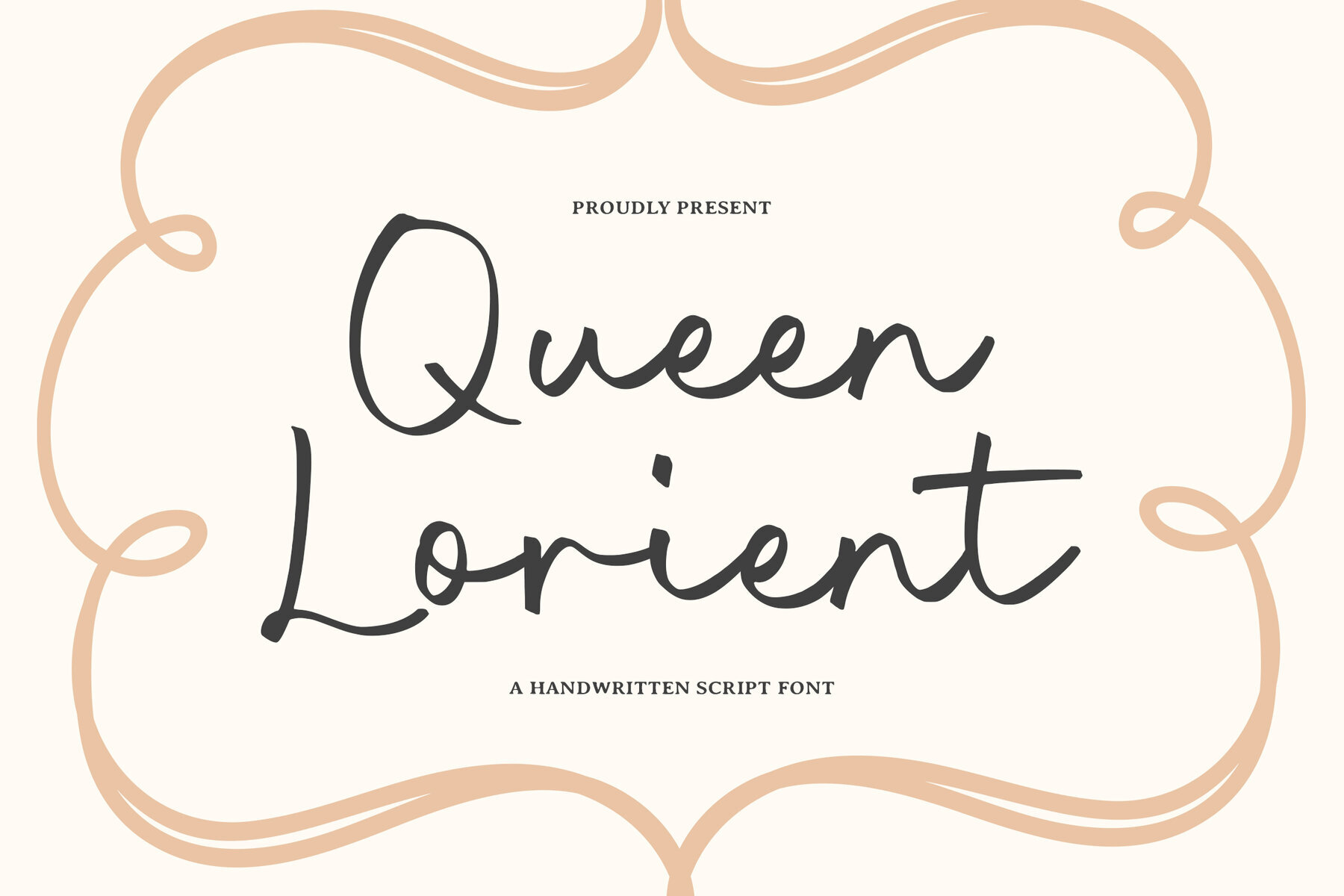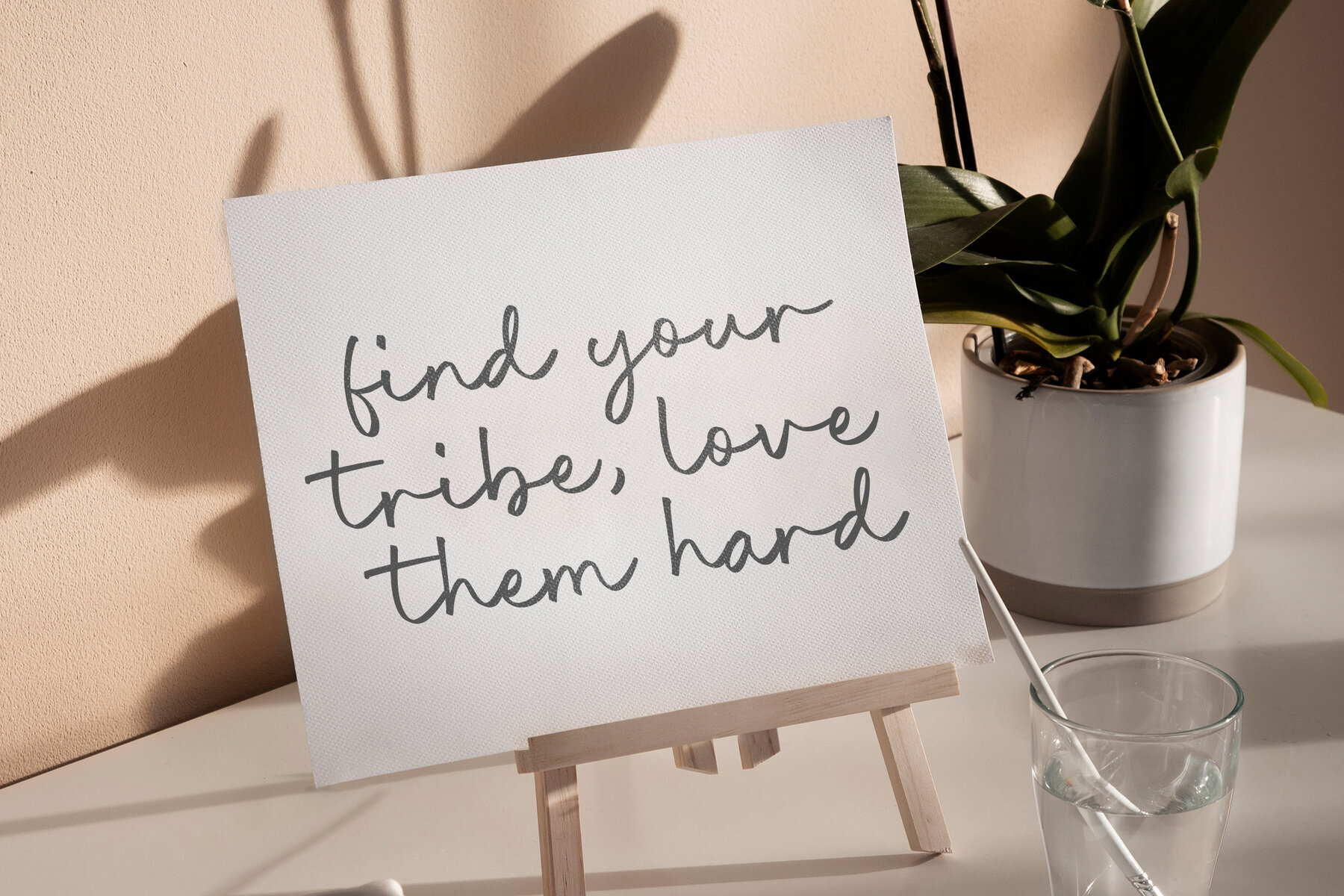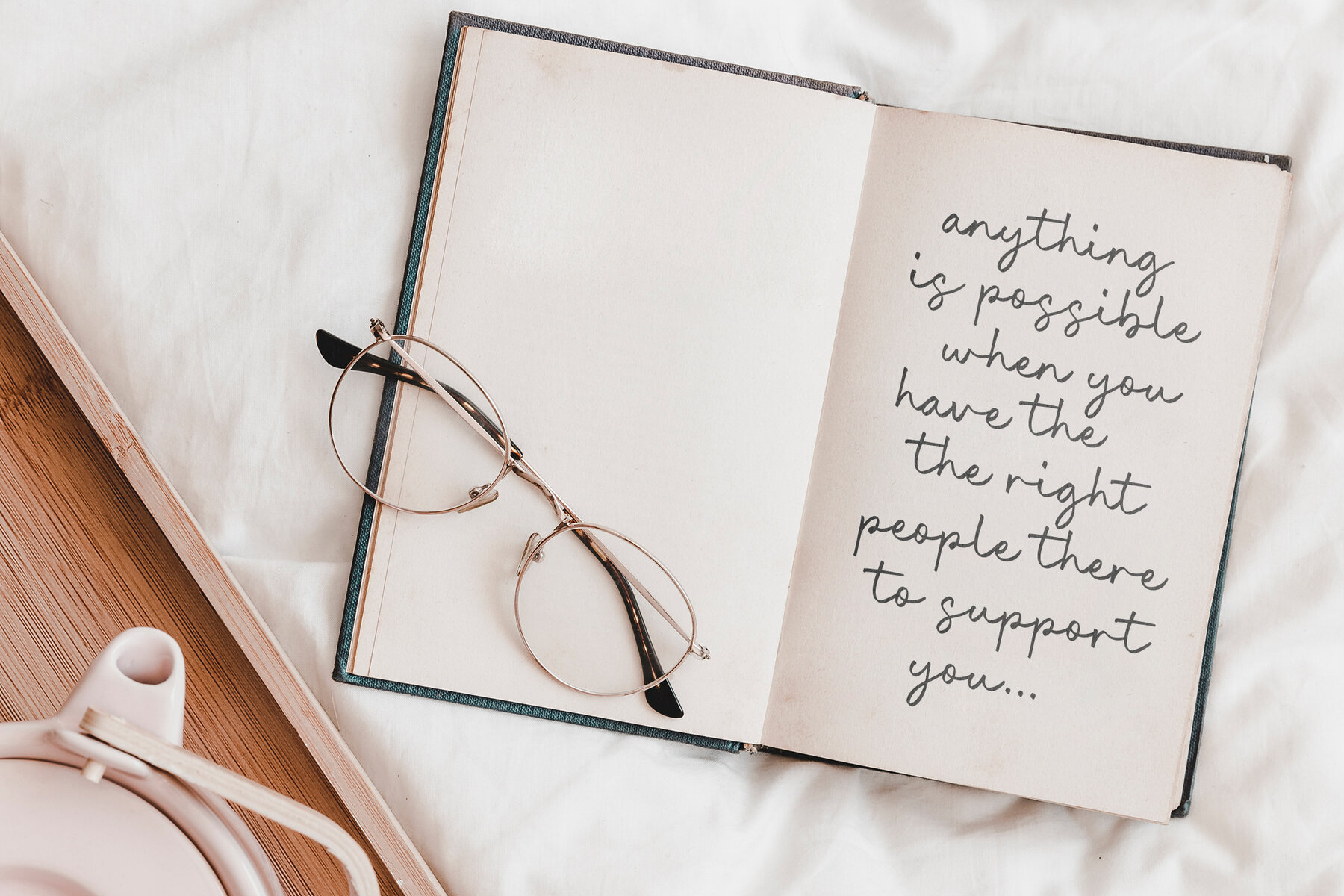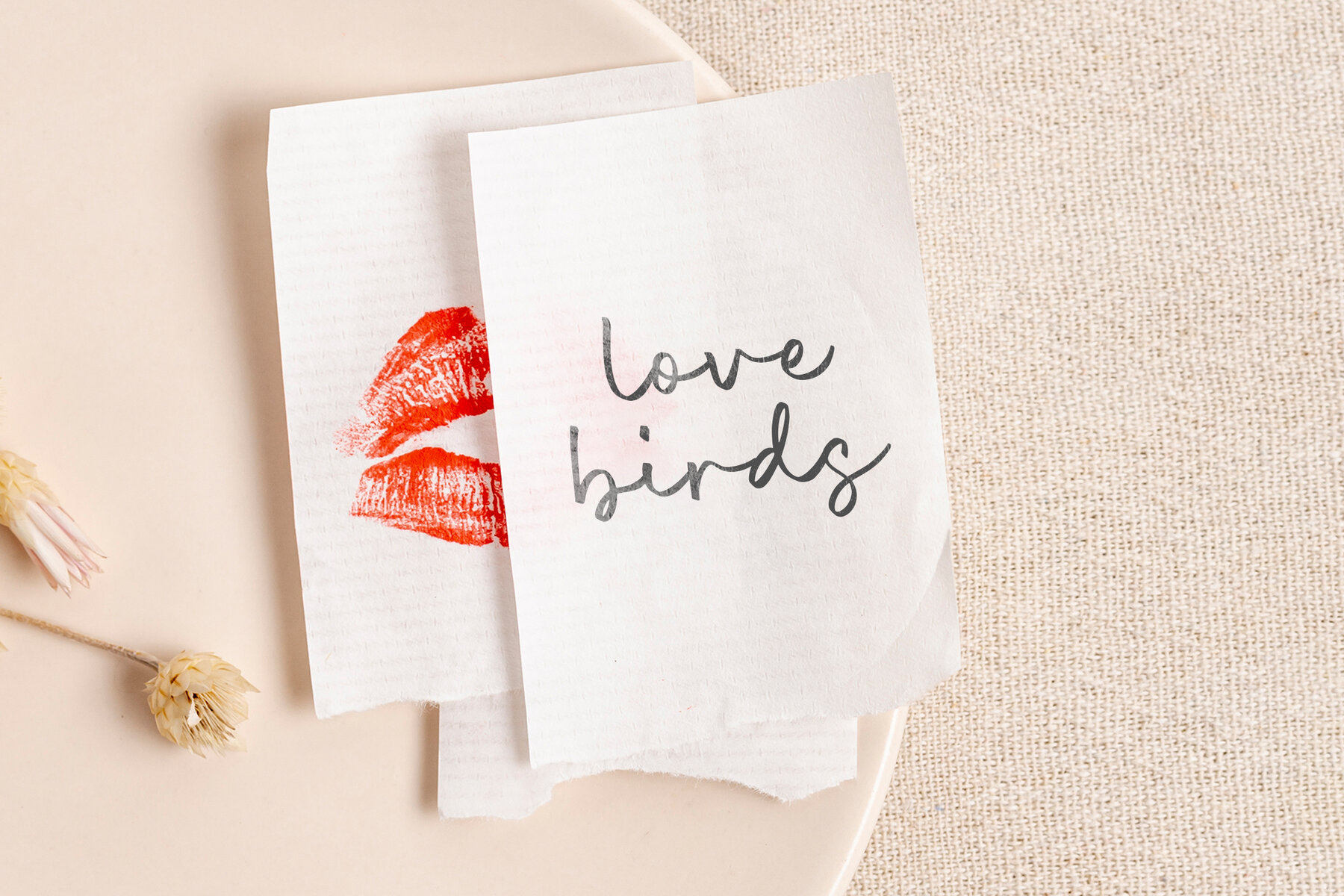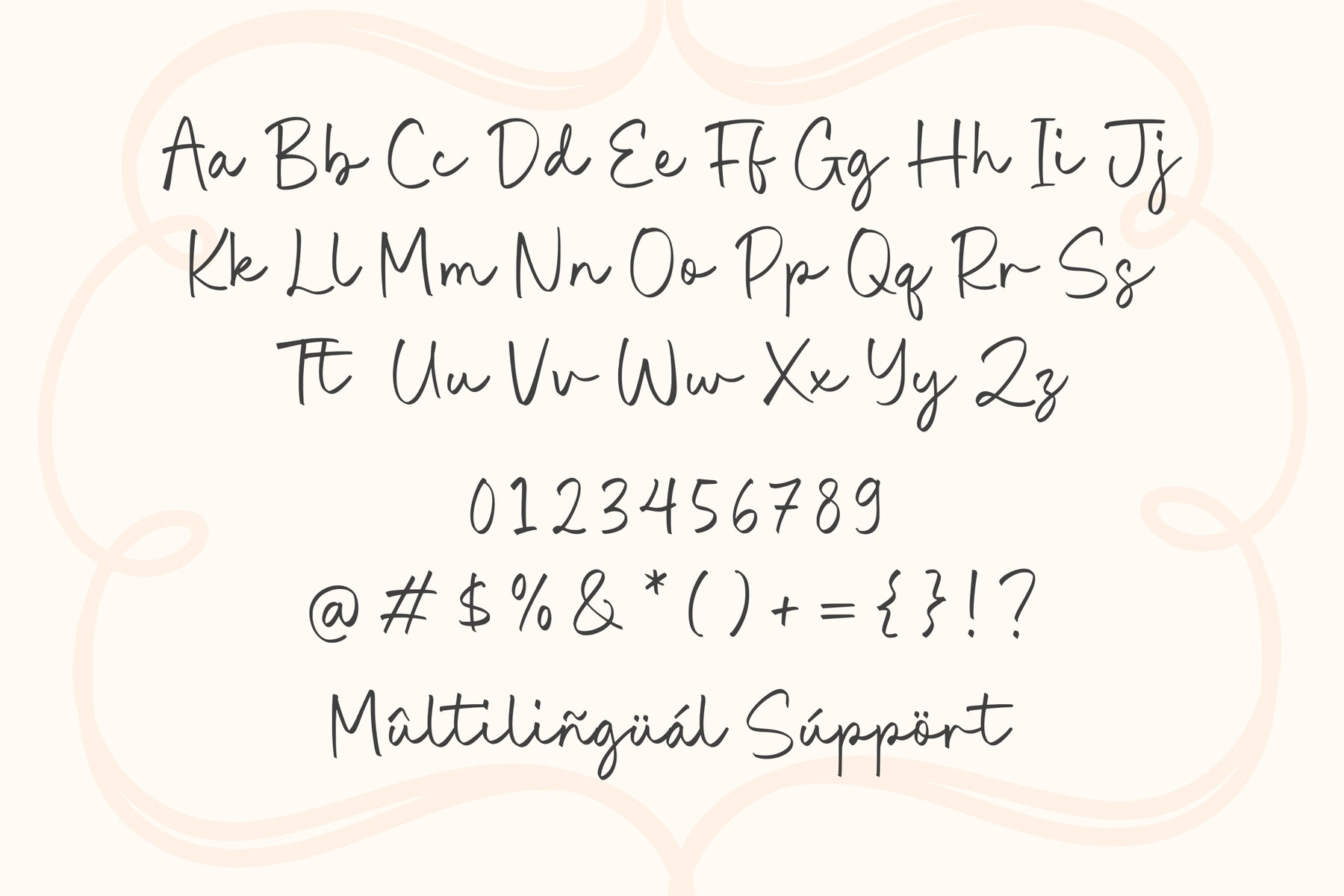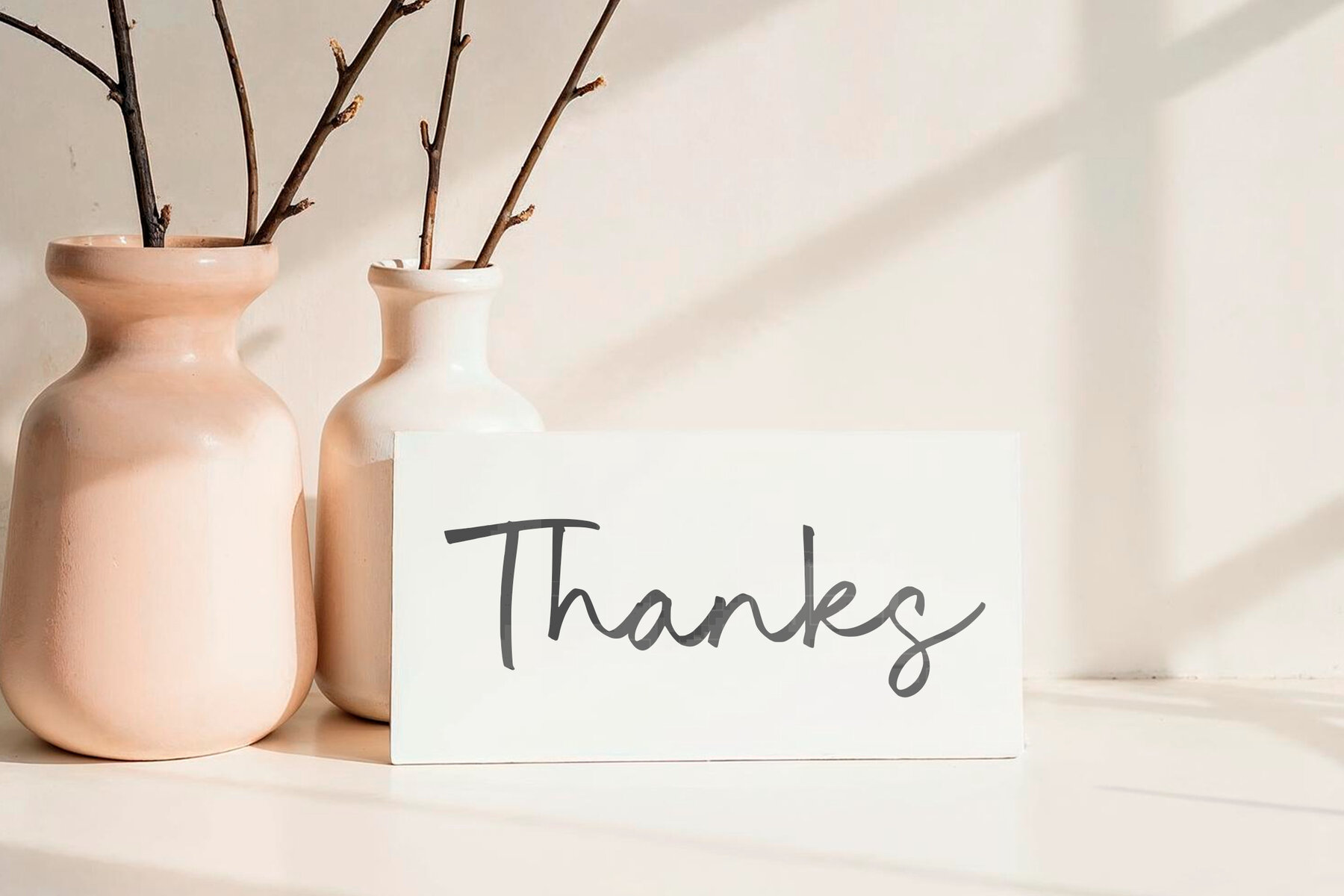
Queen Lorient Font
Queen Lorient
Queen Lorient is an elegant handwritten script font that marries classic charm with modern sophistication. With its flowing, graceful letterforms and delicate curves, it serves as an impeccable choice for wedding invitations, branding, and luxury design projects. The font lends a romantic touch to any creative endeavor.Queen Lorient: Handwritten Elegance